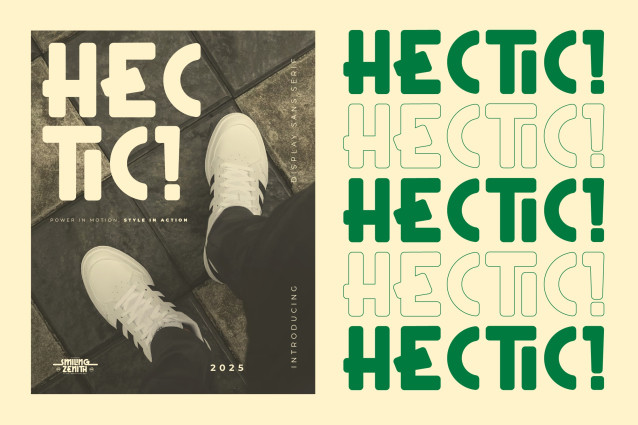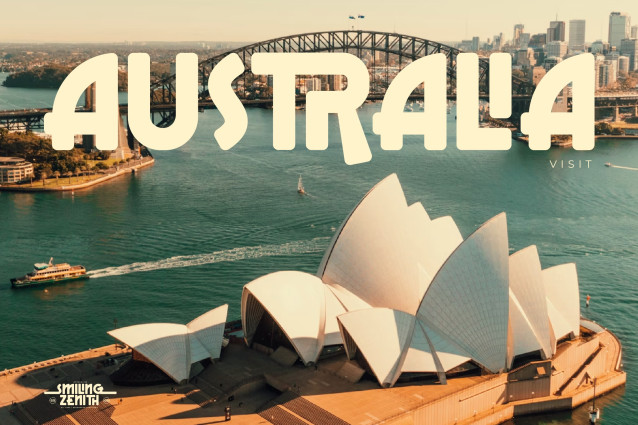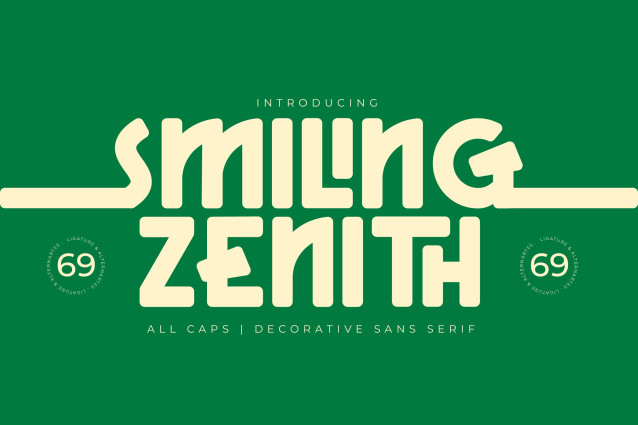
Smiling Zenith Font
Smiling Zenith Font is a bold decorative sans serif font designed in al caps to delver power, modern style, and instant impact. with strong lines and unique decorative details, it creates a striking balance between authority and creativity perfect for headlines, posters, branding, fashion, and digital ads.